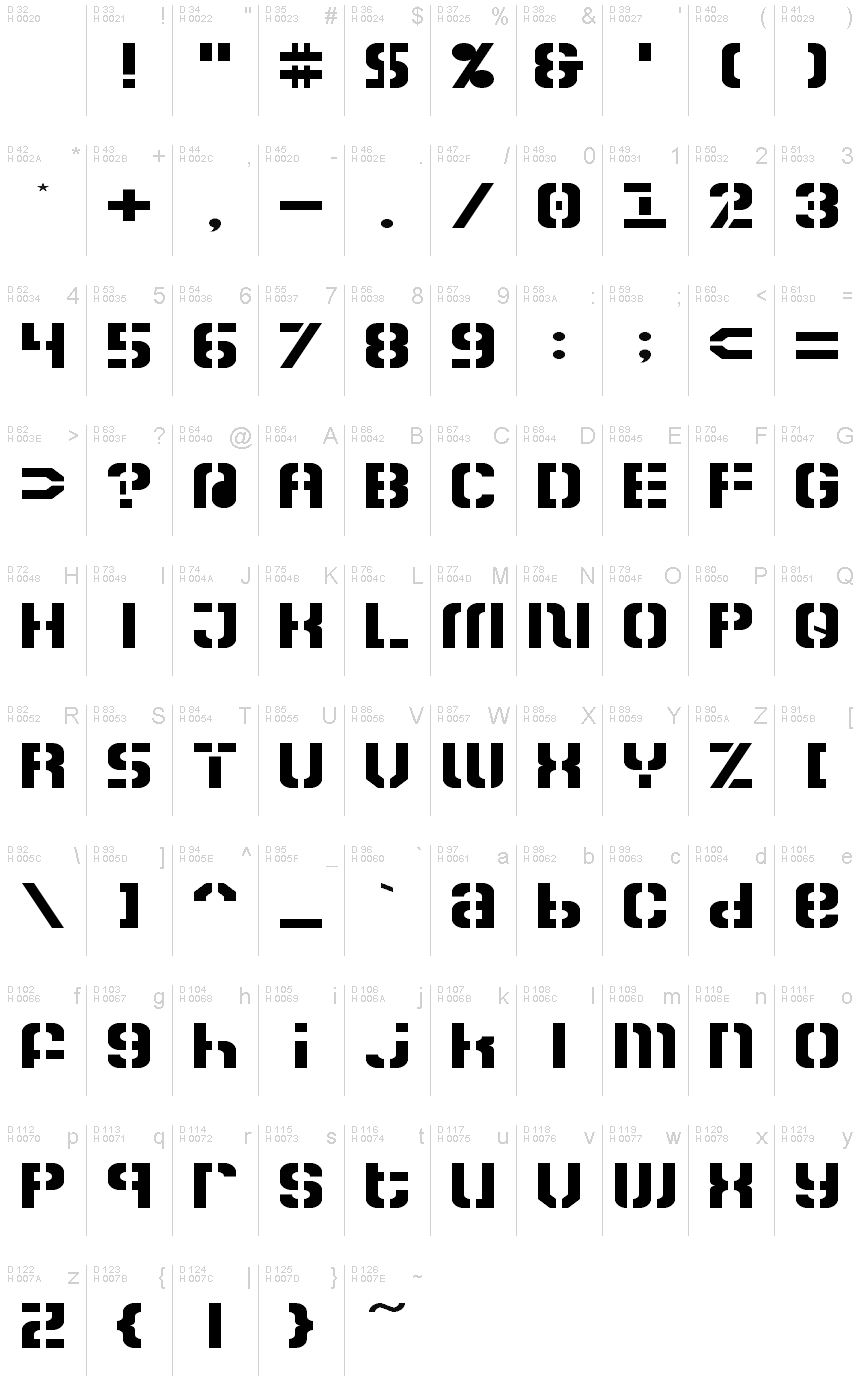
Zoia Stencil Regular
Just a cute stencil doodle. :^)
Designer description: Just a stencil doodle. Seems like it would go well with the Kitchen Sink family.
This is built at roughly 3.5x5, but shrunk with filters to look squareish and to make the line spacing very small. I think it's cute!